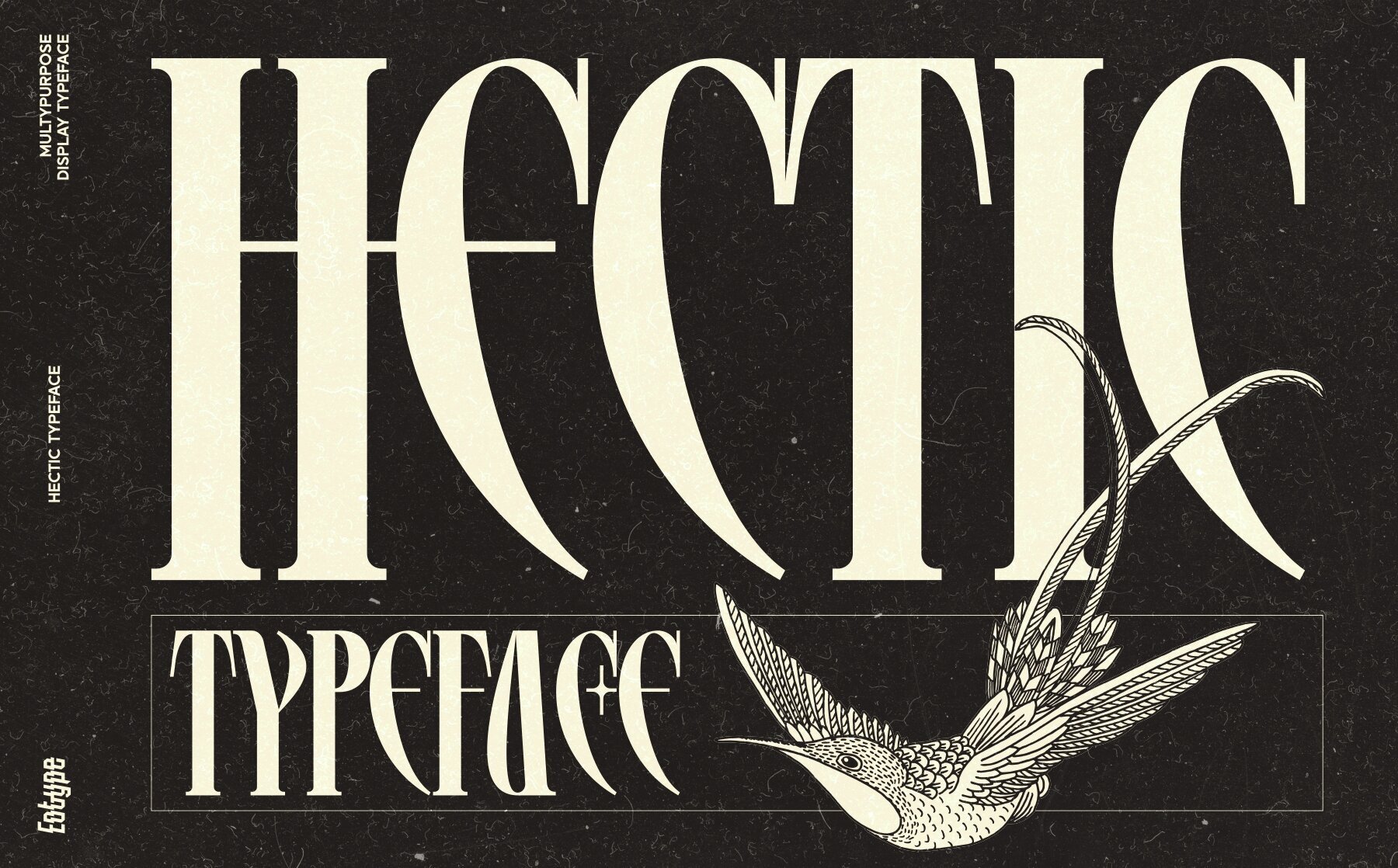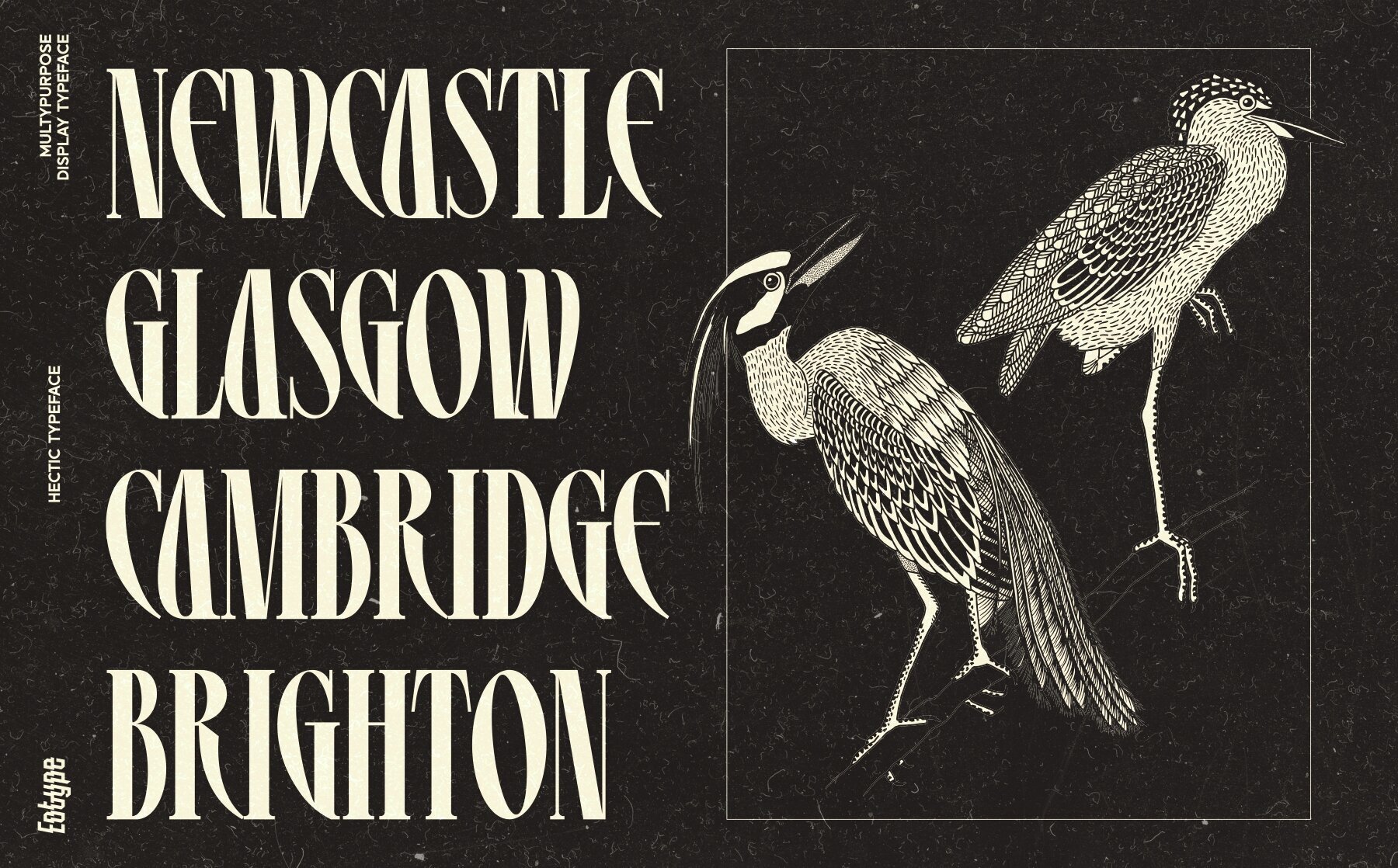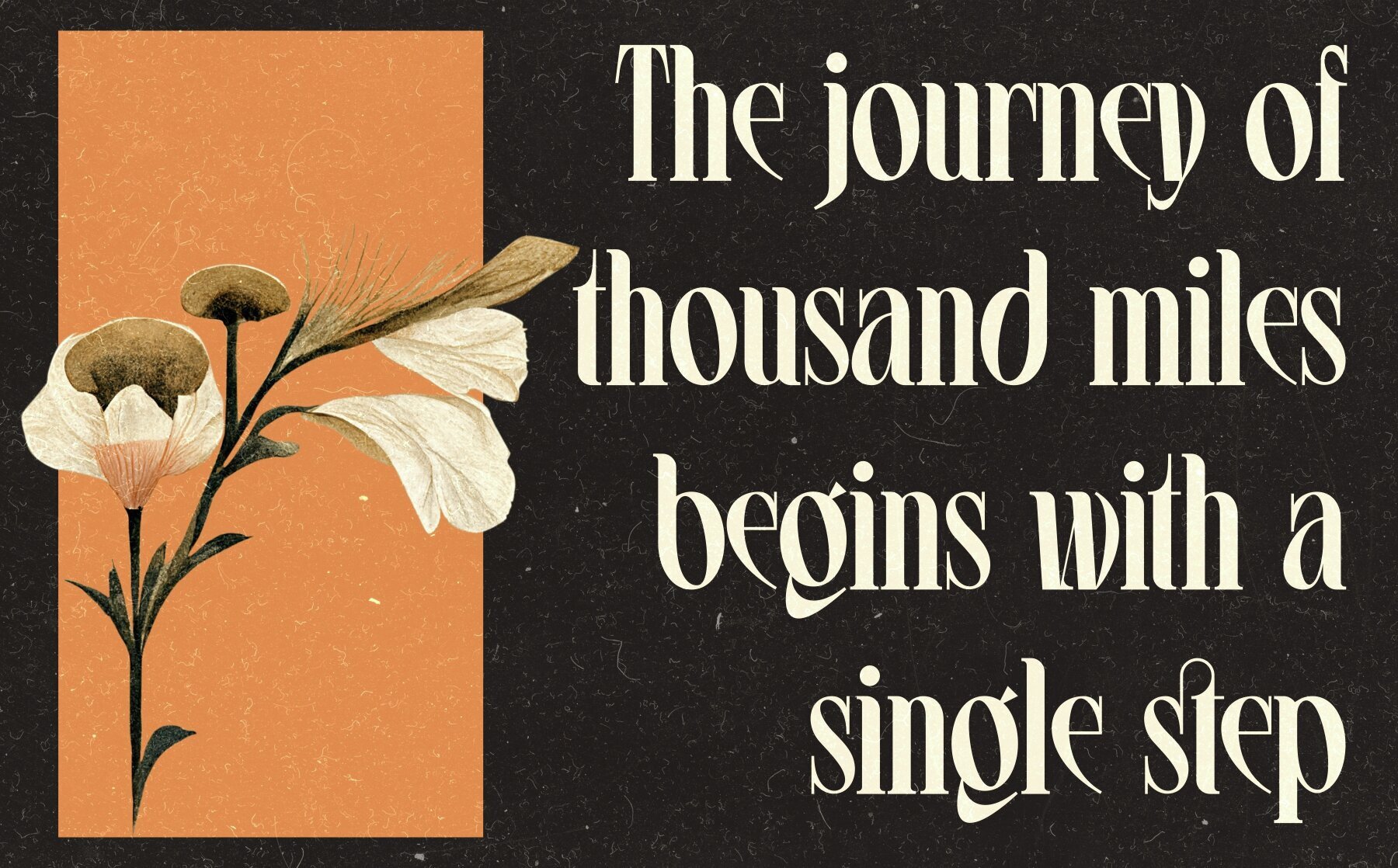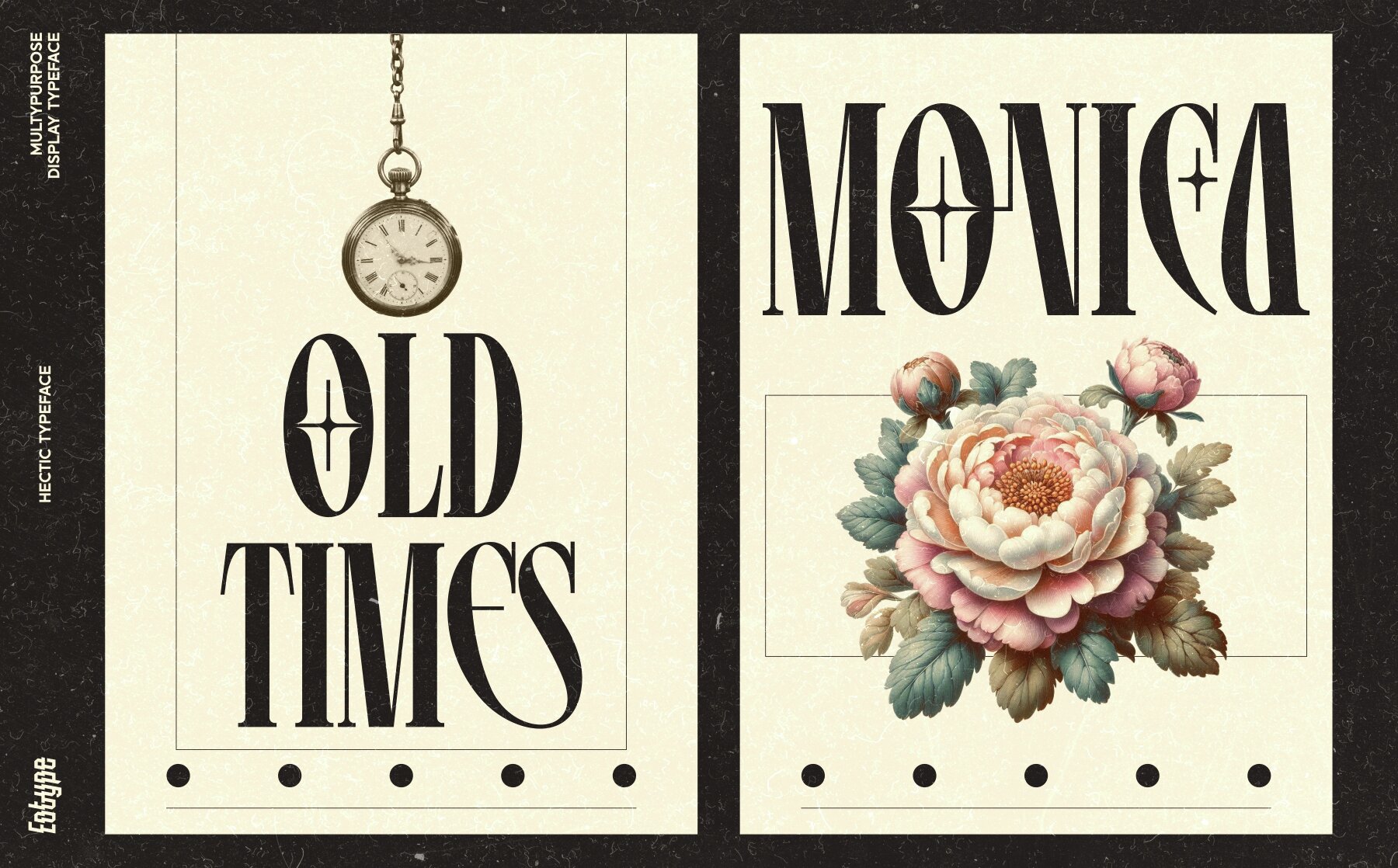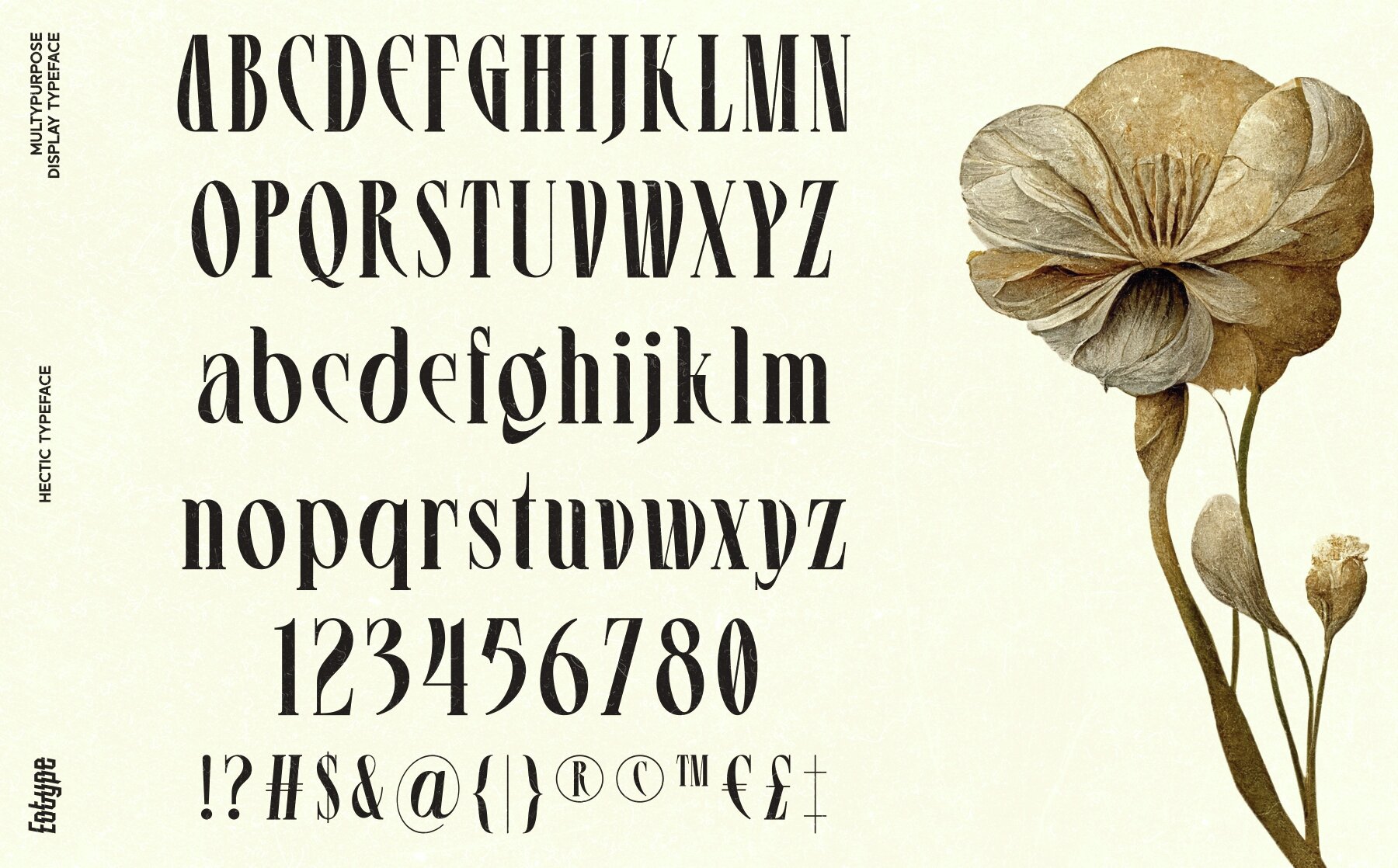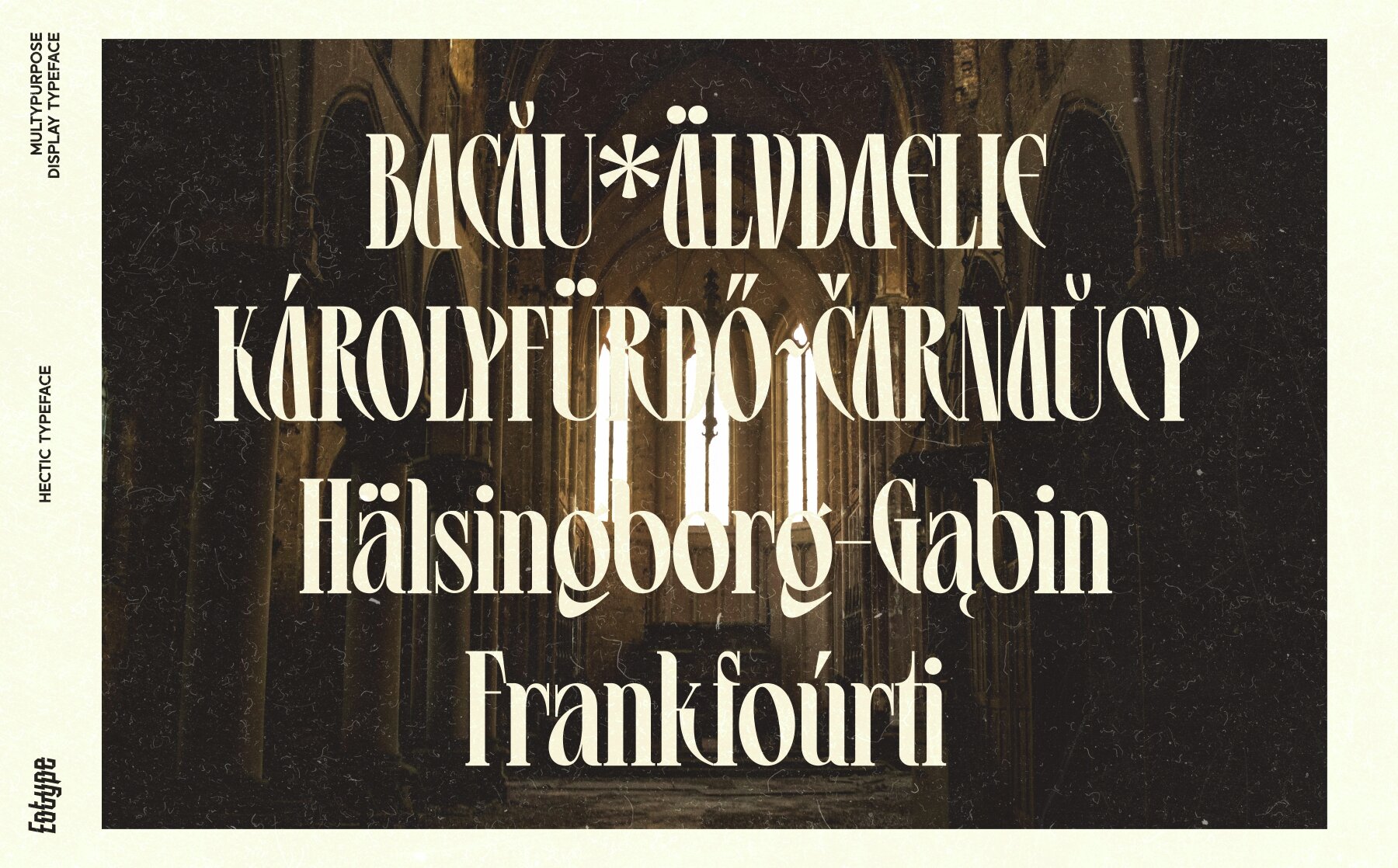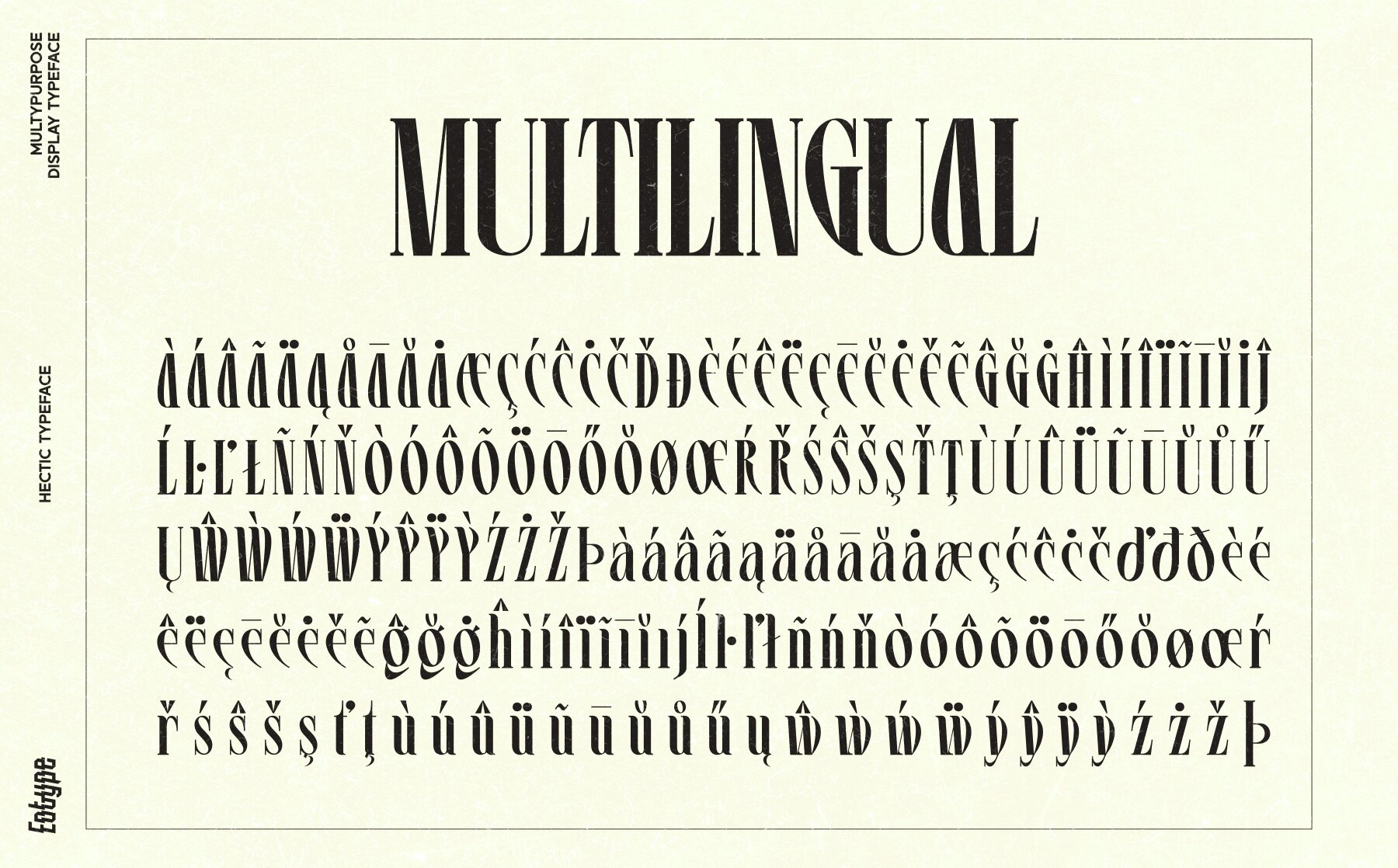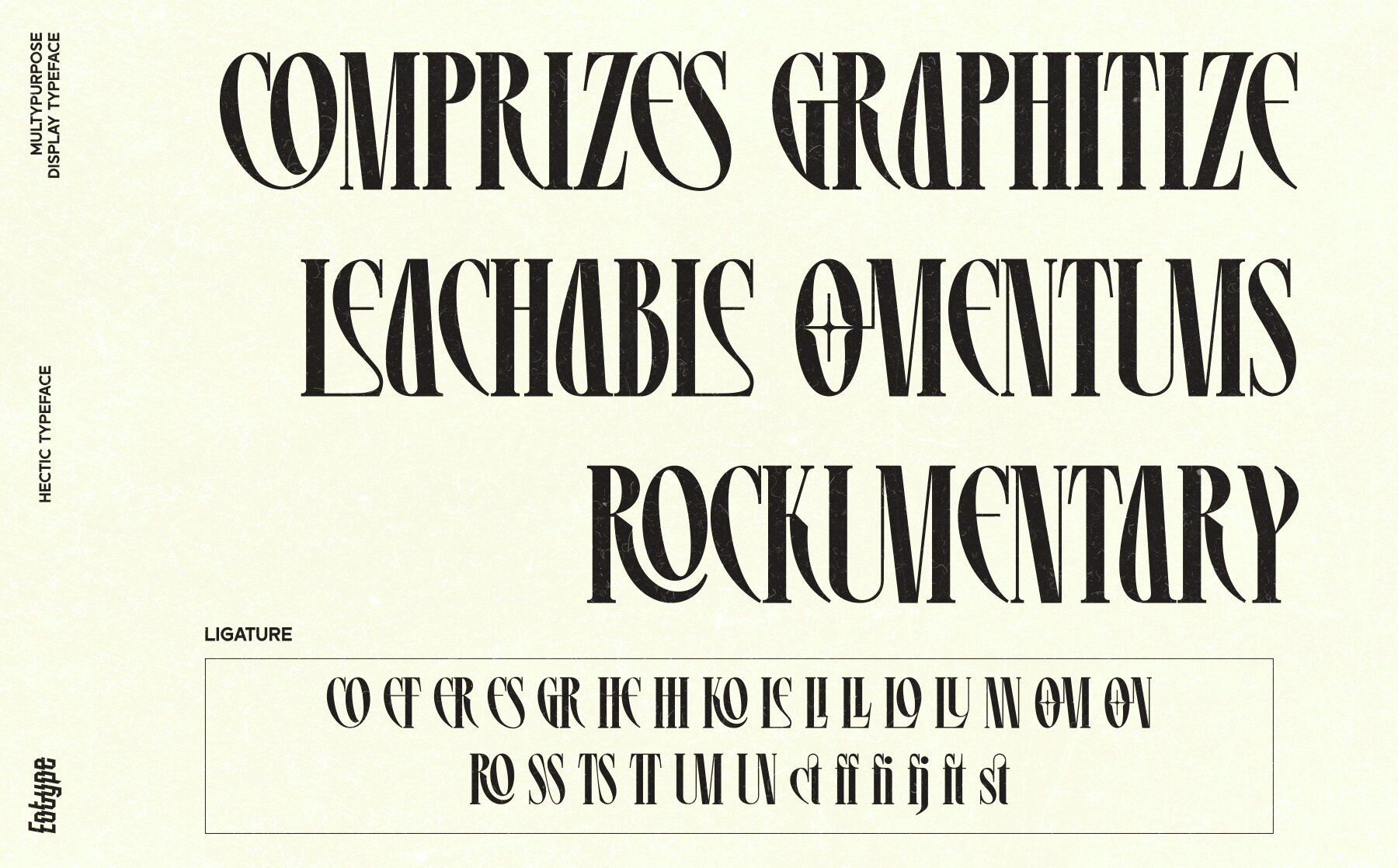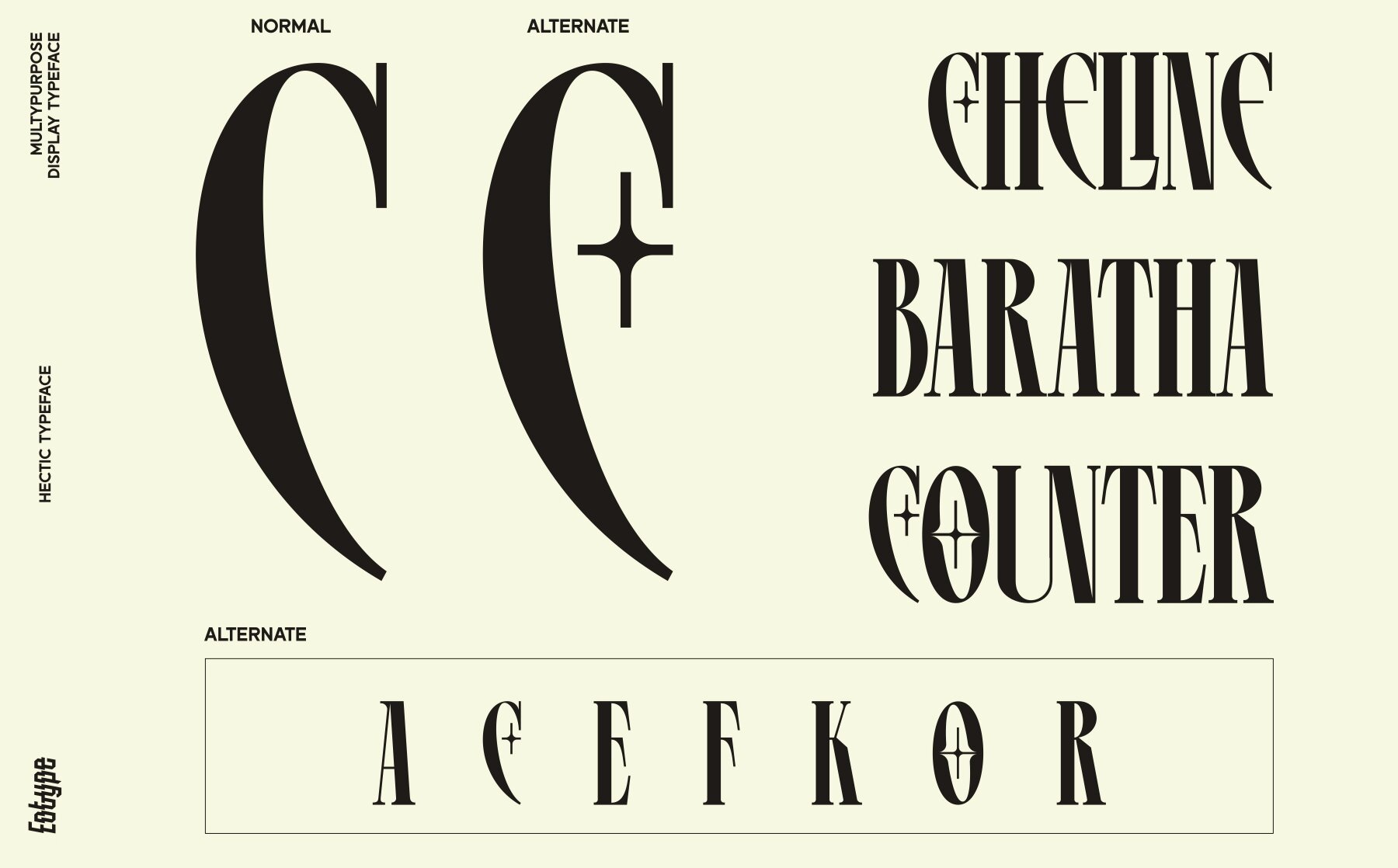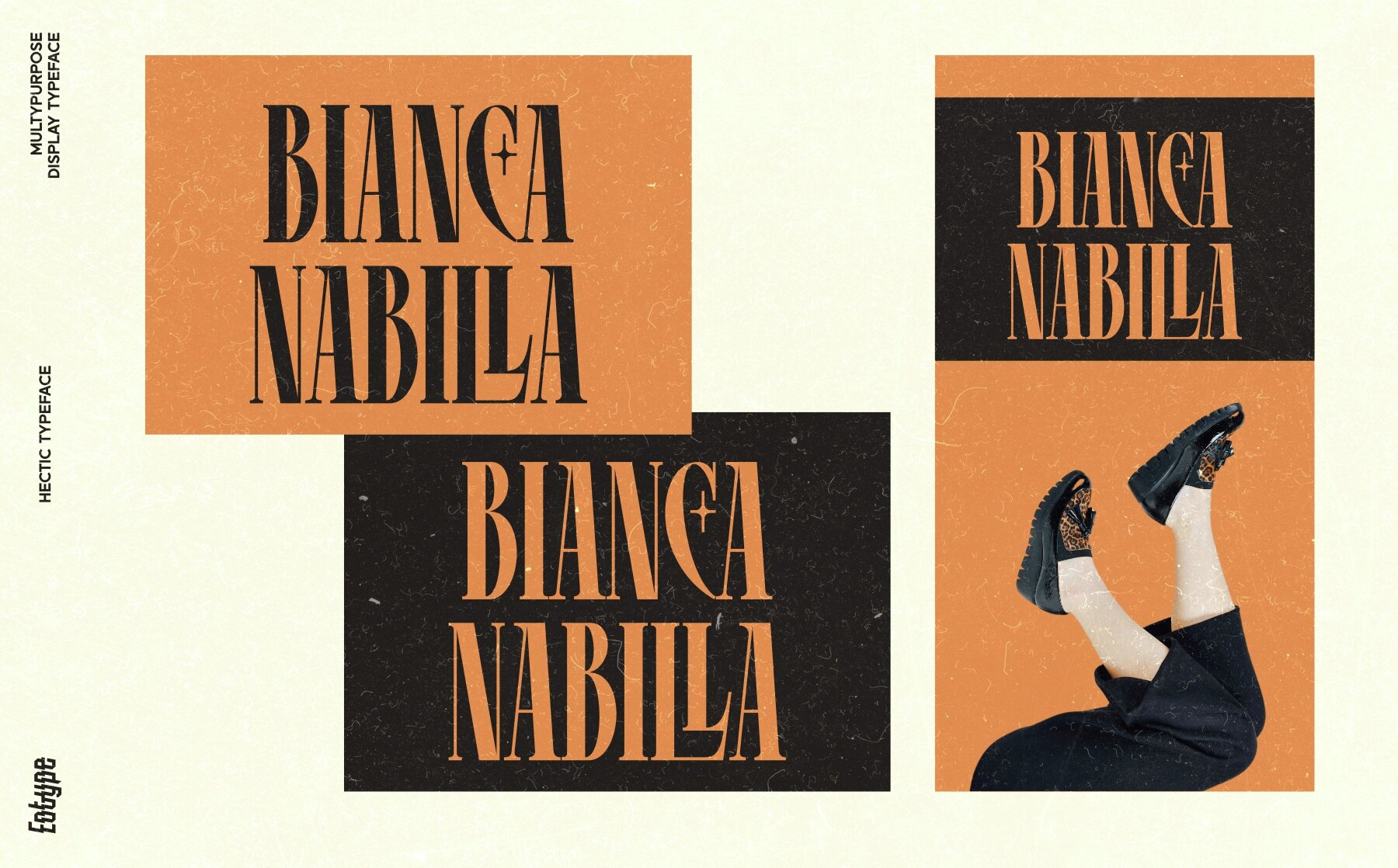
Hectic Font
Hectic
This font features tall and narrow letterforms with high contrast, ideal for art deco inspired designs. Its elegant and stylized serif details make it perfect for striking headlines and theatrical displays. Suitable for retro-themed projects, luxury branding, or any design needing a touch of vintage flair.